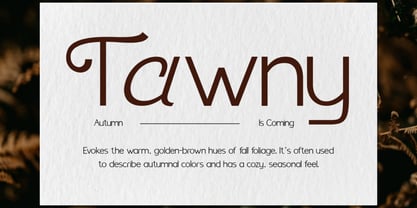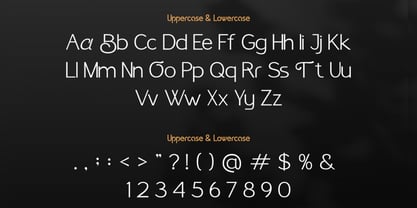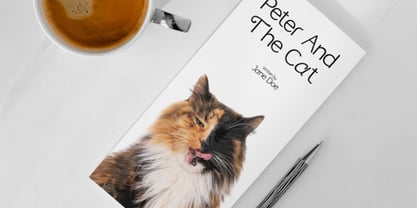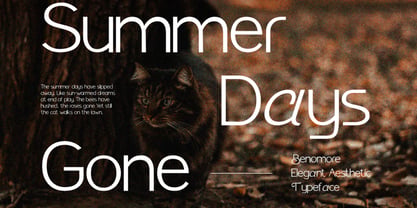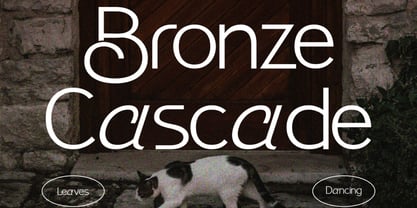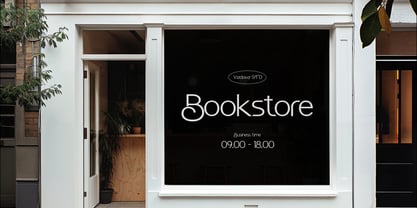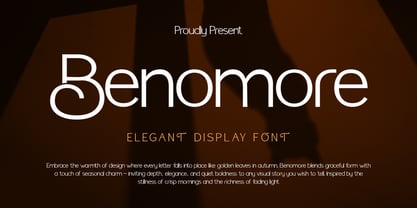
Benomore
Benomore is an elegant display typeface that effortlessly balances modern minimalism with graceful, character-driven forms. Its smooth curves, refined proportions, and unique typographic details evoke a sense of quiet sophistication, making it an excellent choice for projects that require subtlety without sacrificing visual presence. Designed with both beauty and function in mind, Benomore offers uppercase and lowercase letters, a full set of numerals, essential punctuation, and thoughtfully crafted glyphs to ensure versatility across various applications. Whether you're designing for upscale branding, fashion campaigns, lifestyle editorials, or luxury packaging, Benomore adapts seamlessly with its clean sans serif structure and contemporary elegance. It brings a delicate warmth to digital and print environments alike perfect for hero headlines, product tags, social media graphics, blogs, and websites seeking a soft but confident typographic voice. Inspired by the calm of crisp mornings and the allure of seasonal transitions, Benomore gives your words a poetic rhythm while maintaining legibility and clarity.